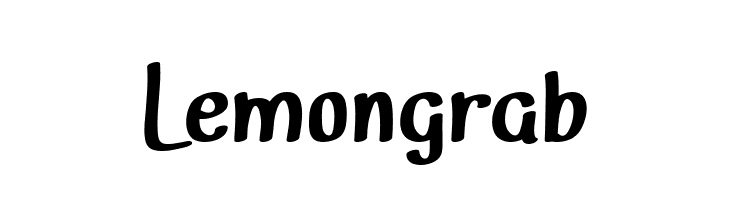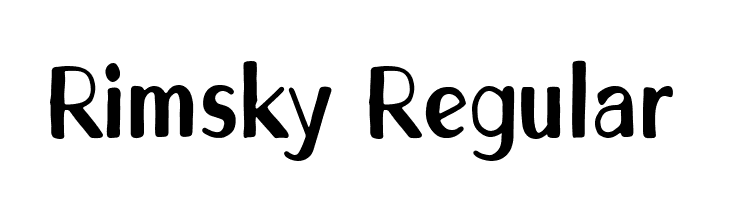
A playful, hand-drawn font with rounded edges and consistent stroke width.
A bold, dynamic handwritten font with energetic brush strokes.
A dynamic brush script font with expressive, flowing strokes.
A playful, bold serif font with rounded edges and a quirky style.
A playful, rounded font with a retro vibe and uniform stroke width.
A charming and elegant script font with fluid, connected letterforms.
A flowing, cursive font with elegant curves and a handwritten aesthetic.
A playful, hand-drawn style font with bold, consistent strokes.
A lively, handwritten font with fluid, sweeping strokes and a playful, informal style.
A bold, cursive font with a playful and energetic style.